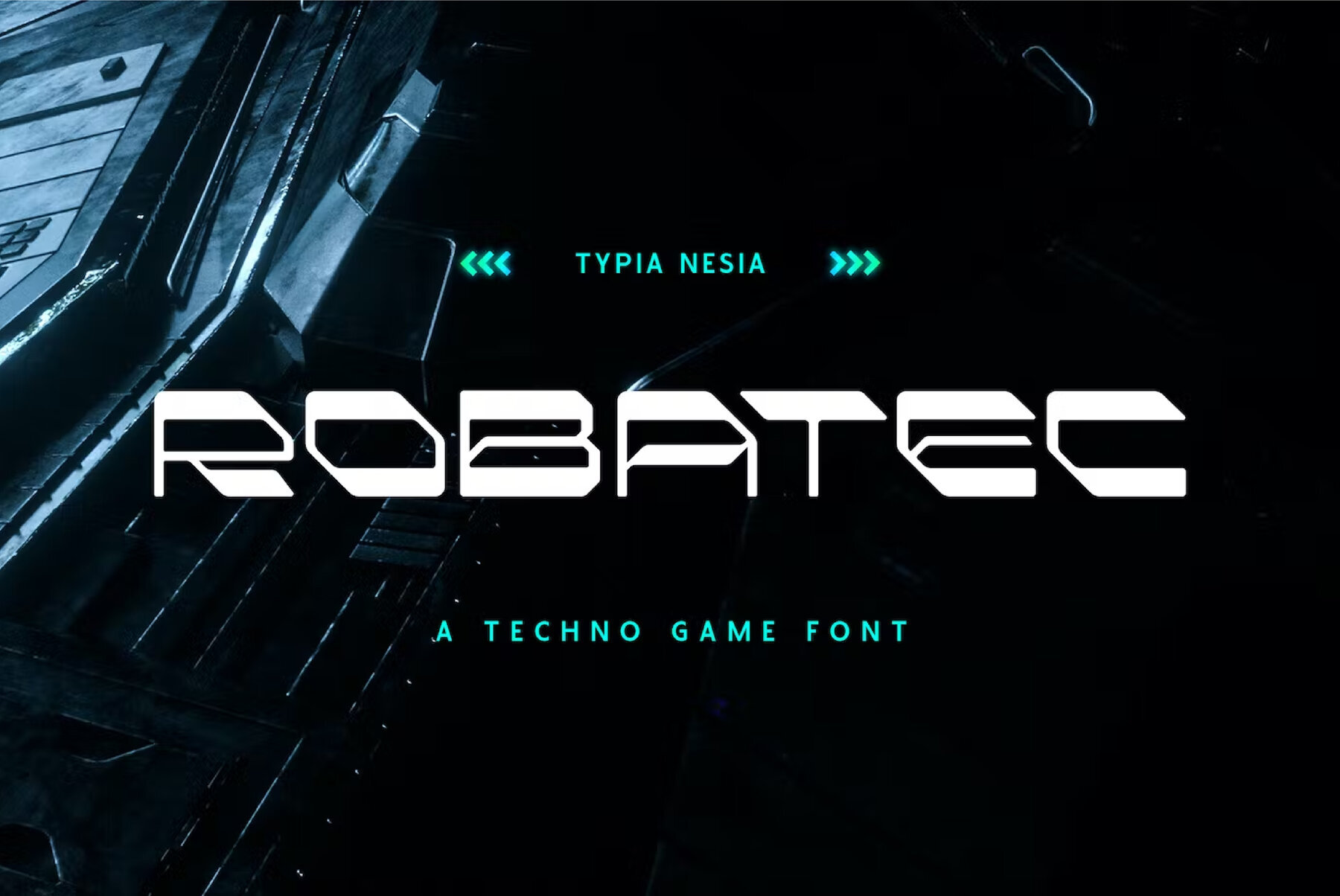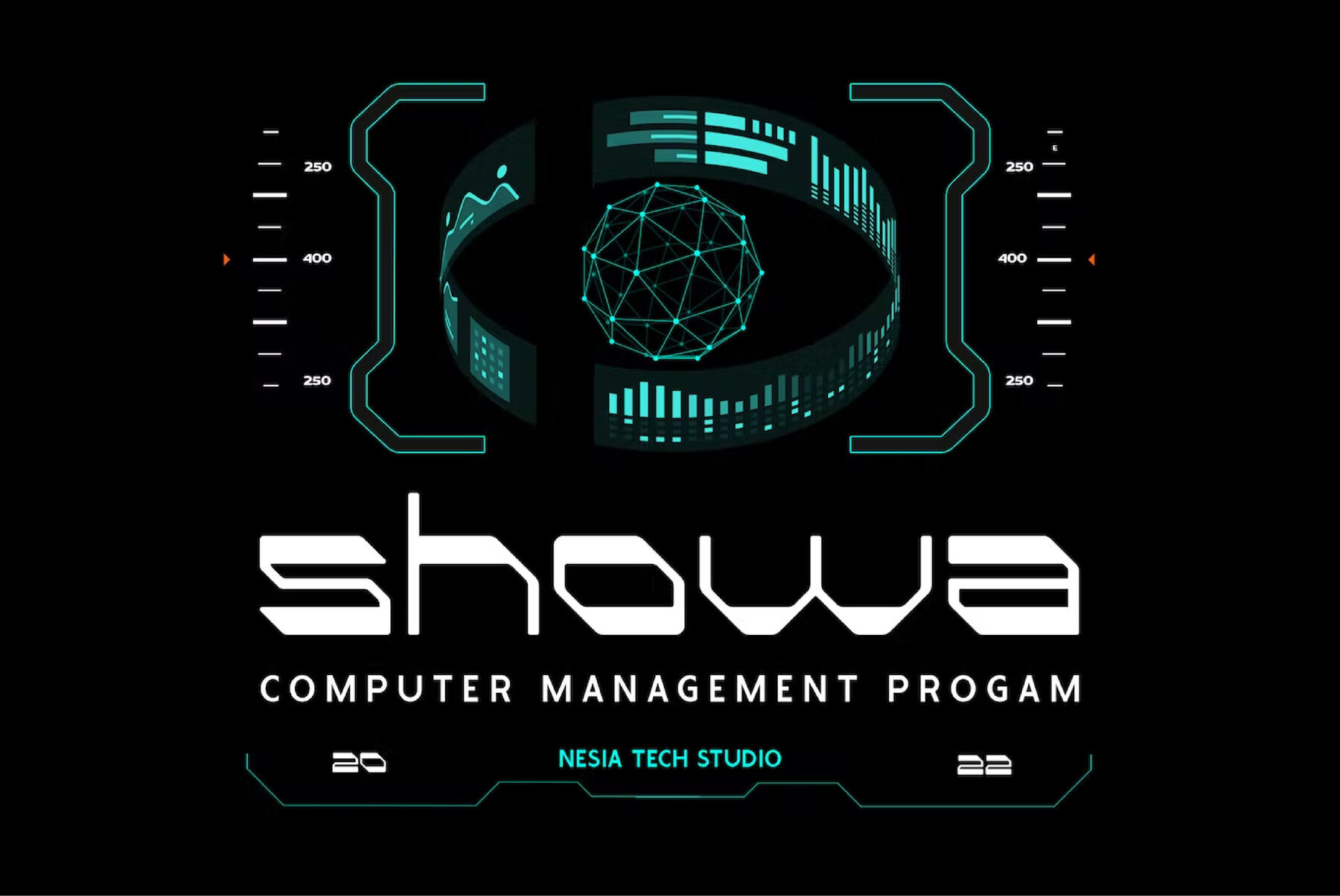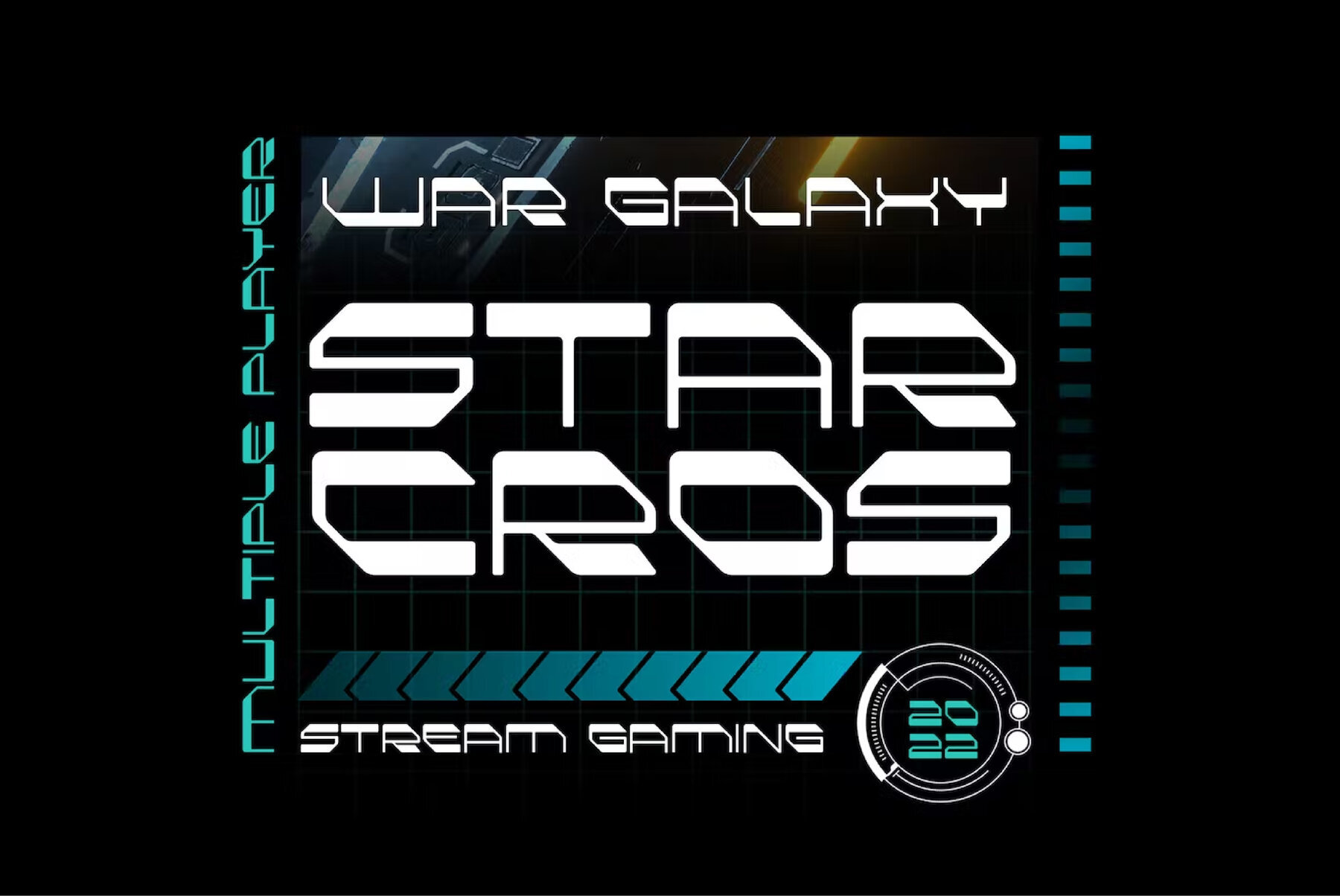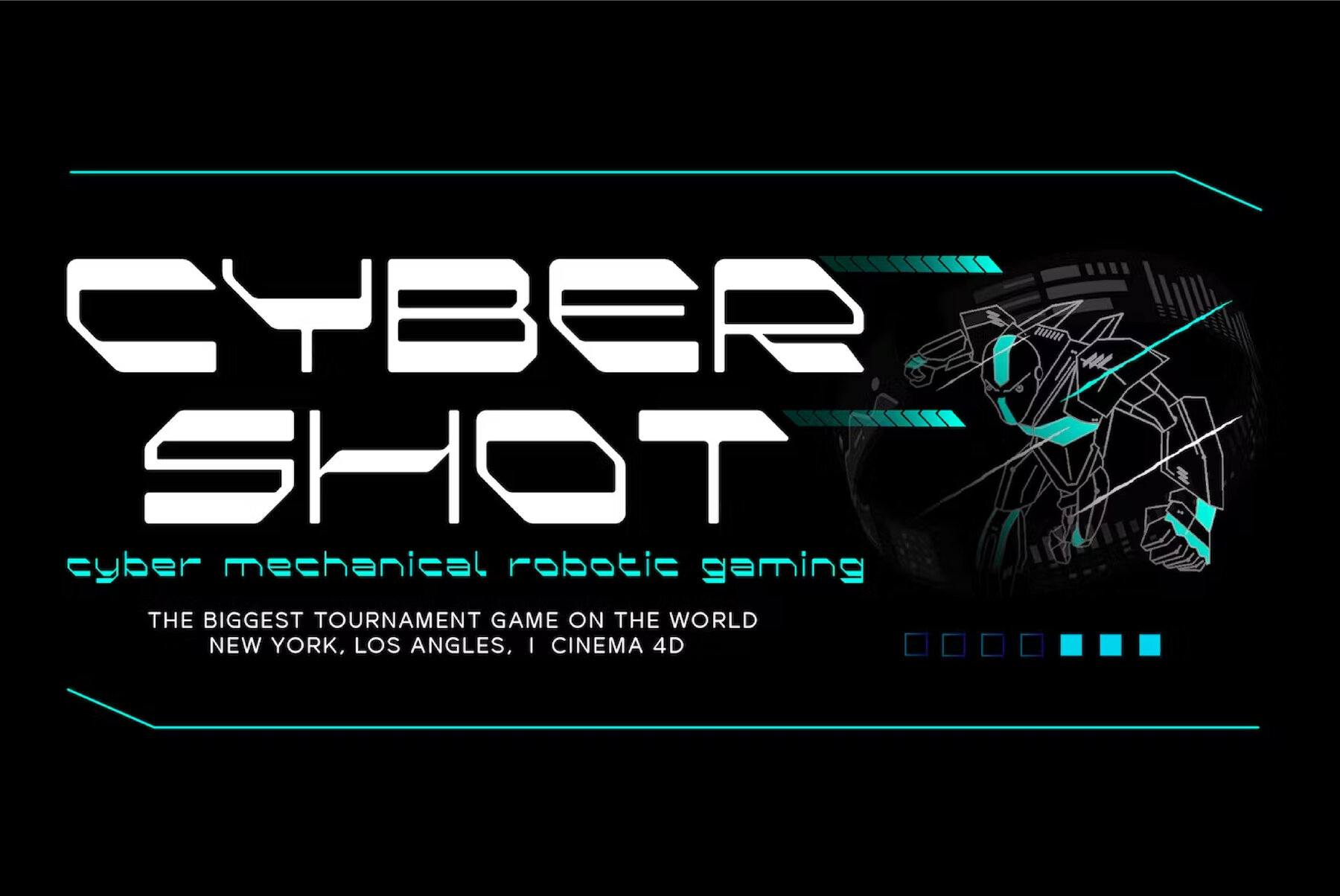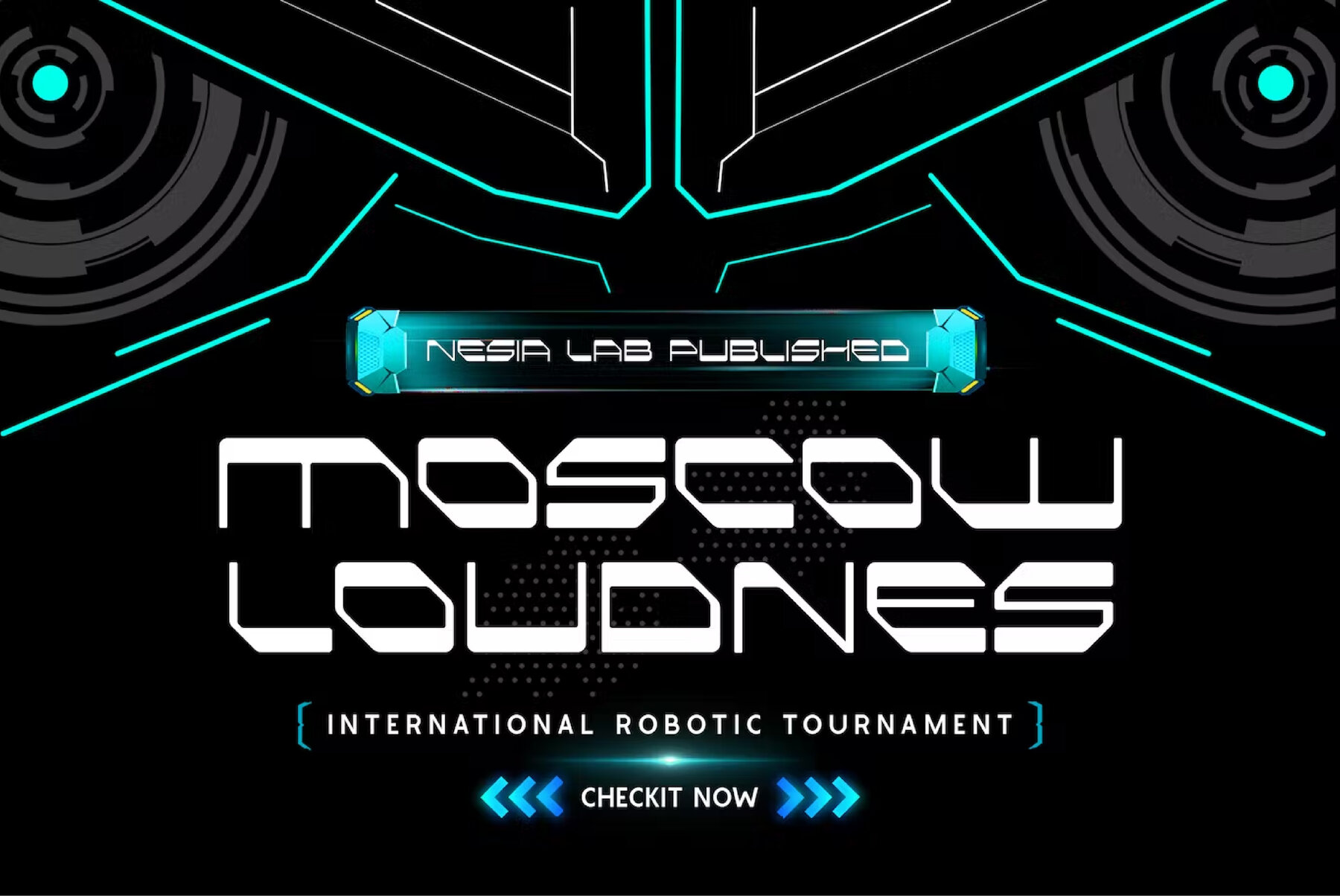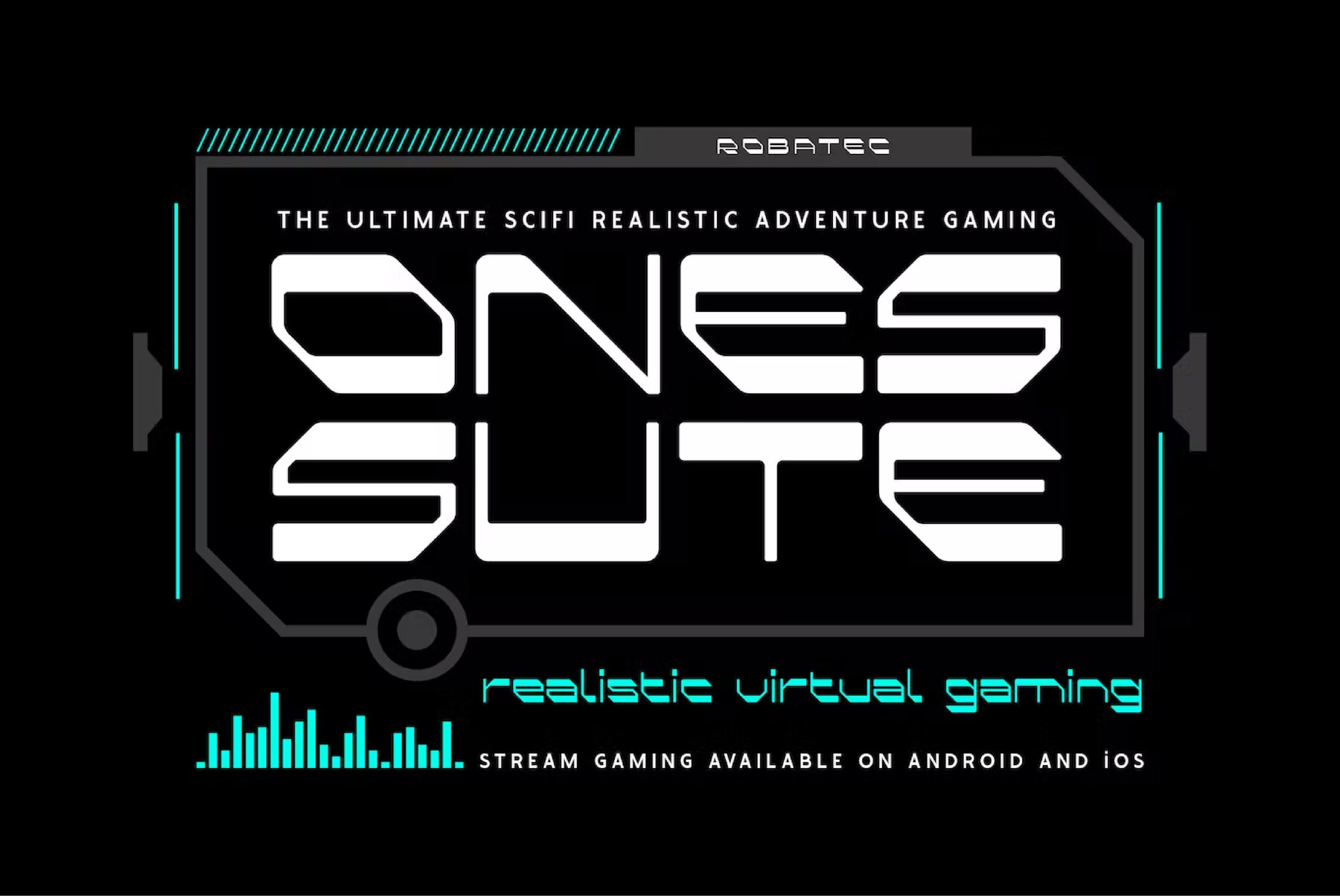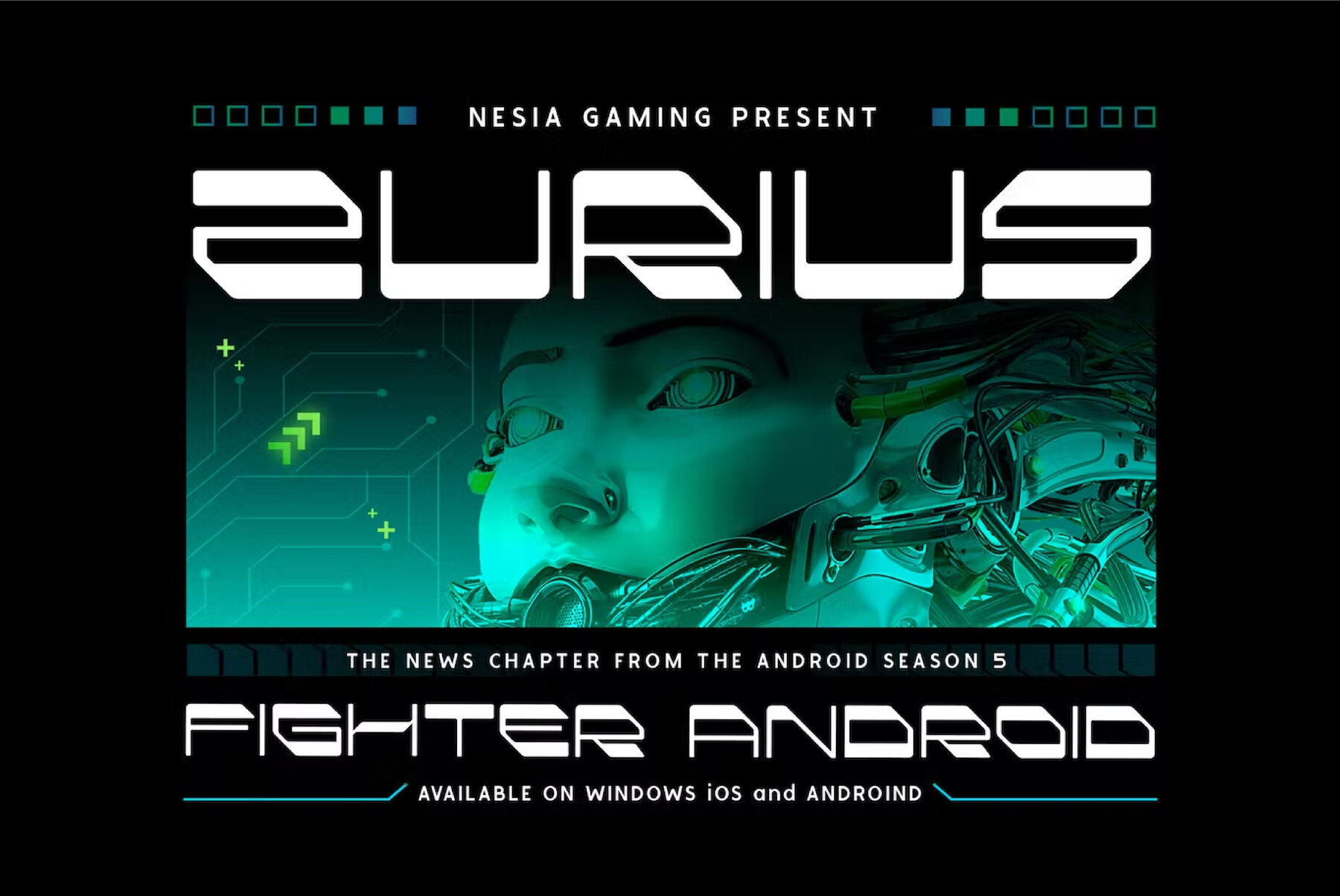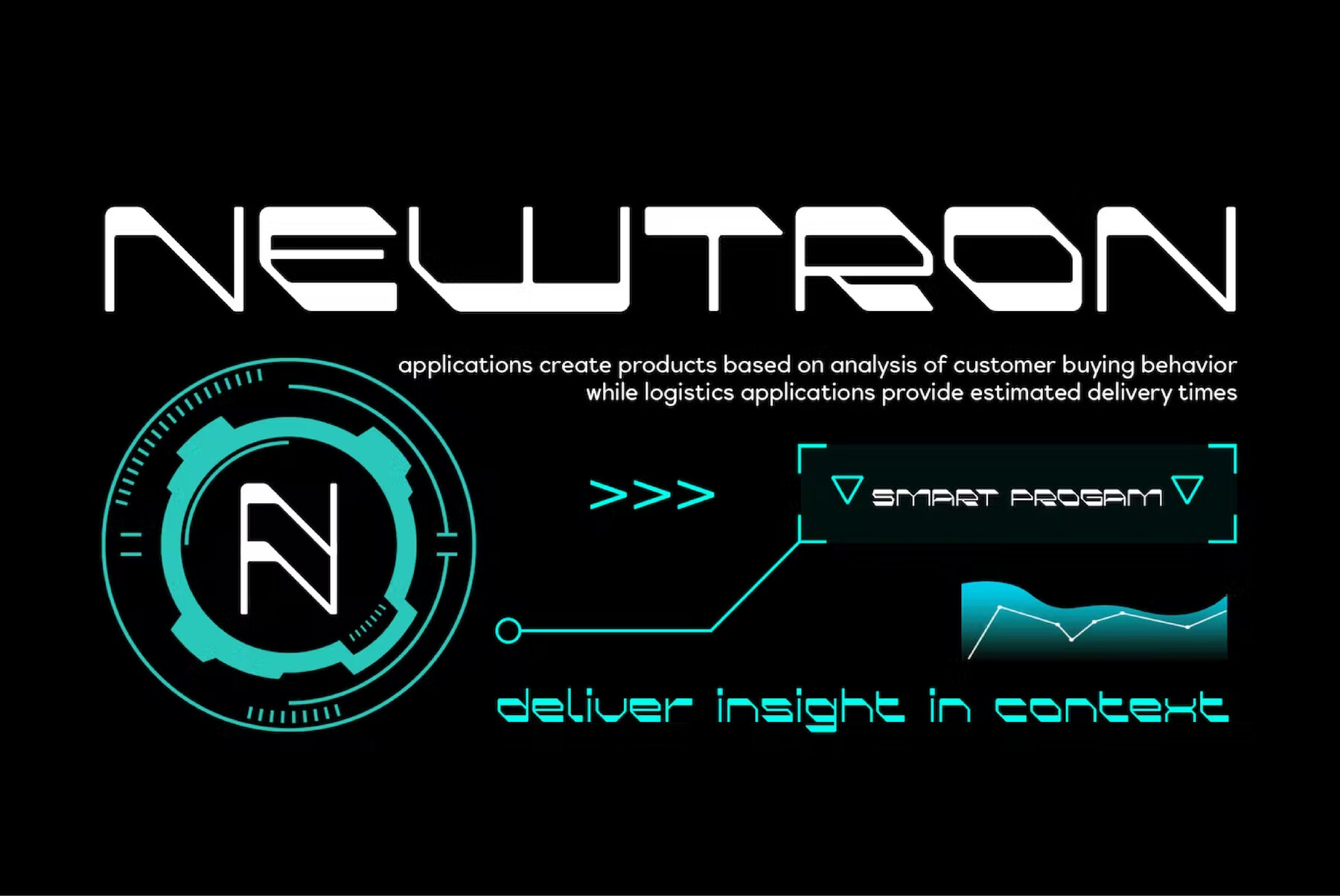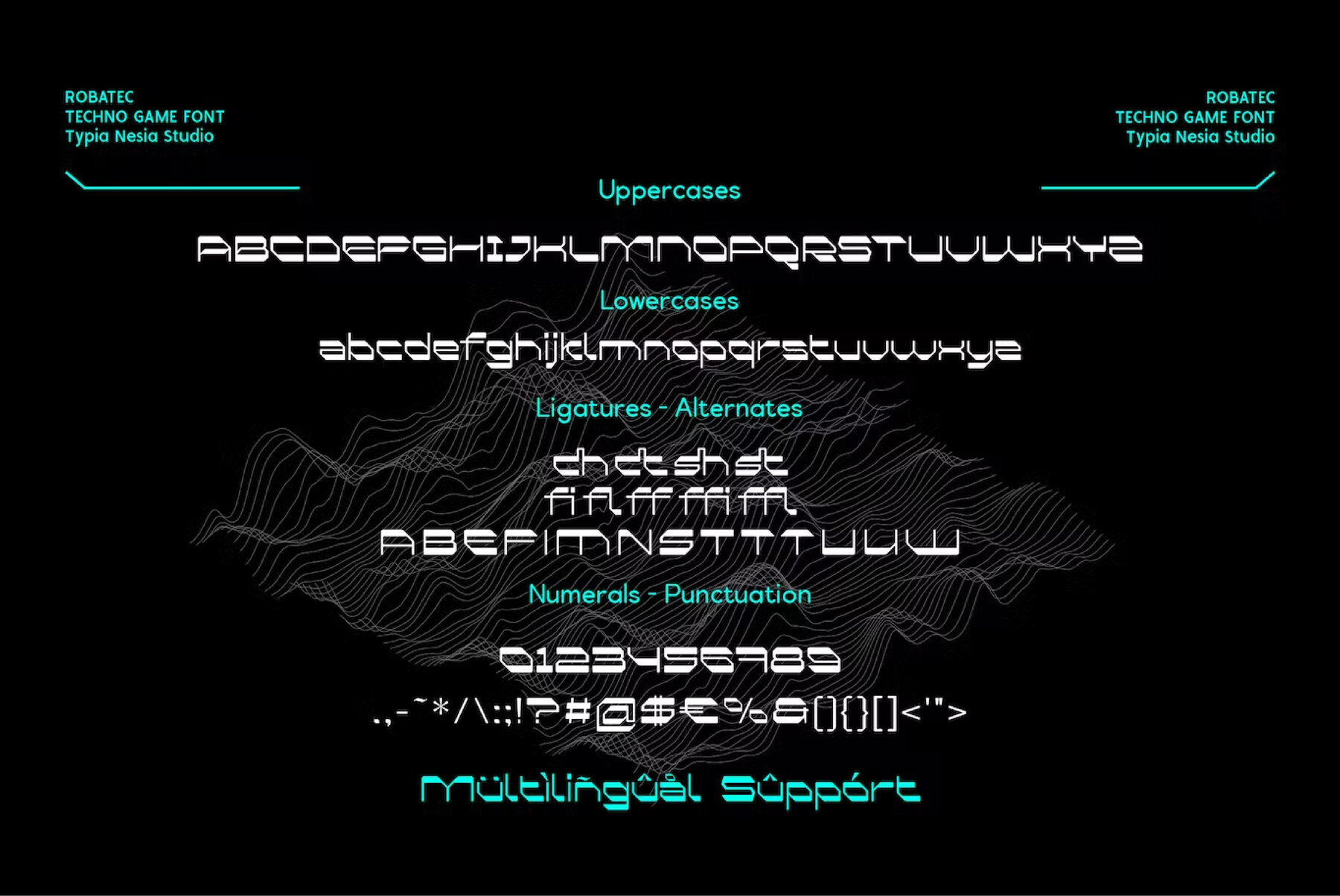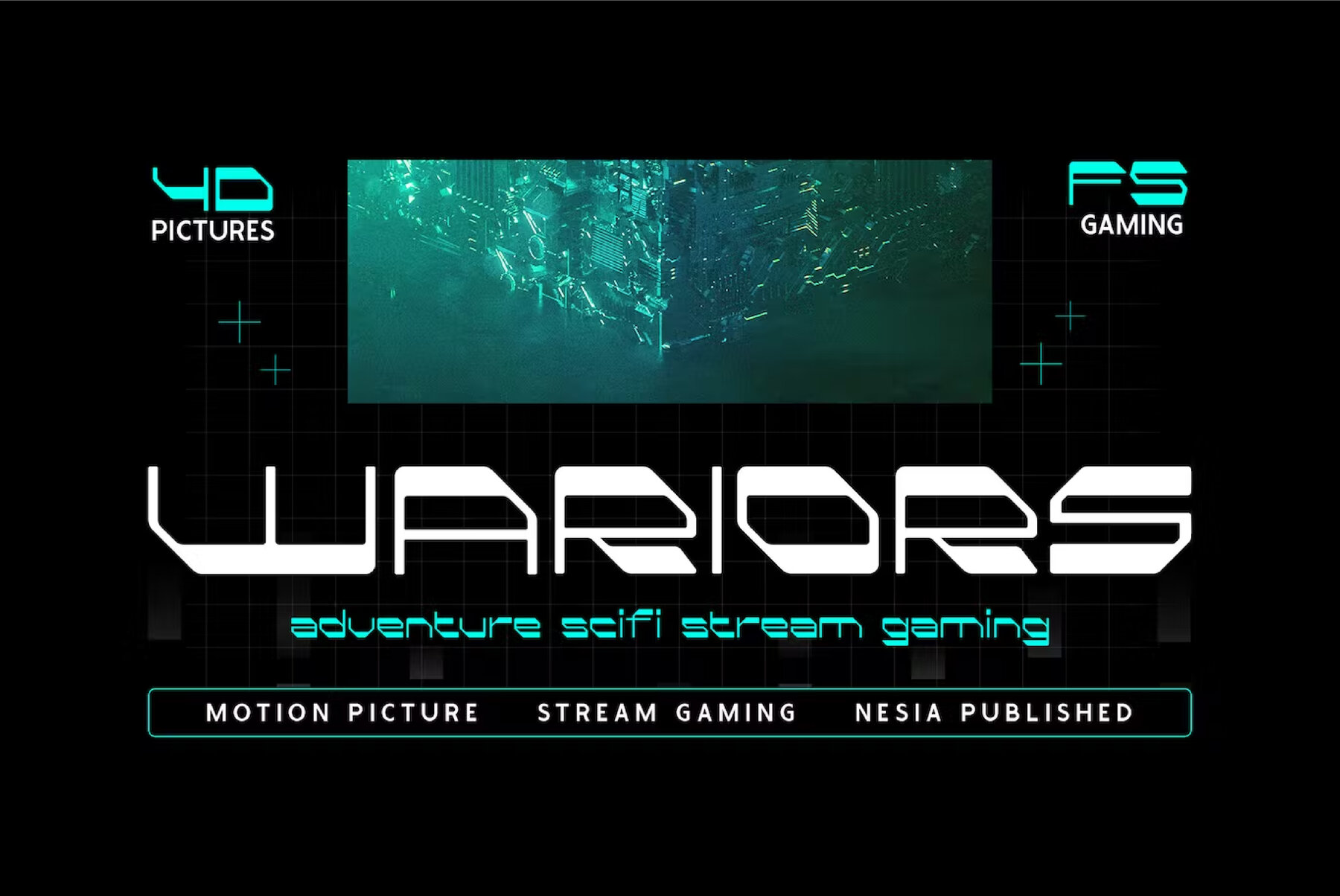
Robatec Font
The Robatec Game Sans Serif Display Font adds a bold and futuristic touch to your projects. Ideal for applications in logo branding, editorial design, esports, 80s retro themes, the gaming industry, sports racing, supercar branding, music posters, website design, and modern advertising. It also enhances poster quotes, book covers, special events, and more.Robatec: Techno Futuristic Sci-fi Display Font